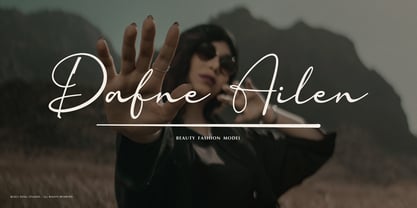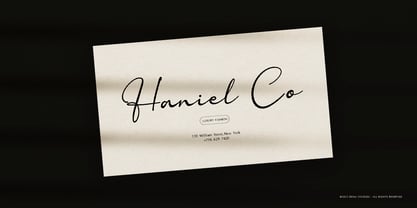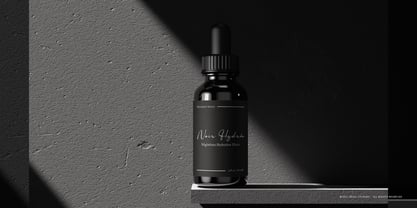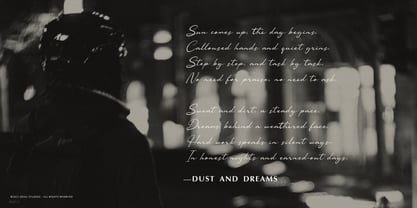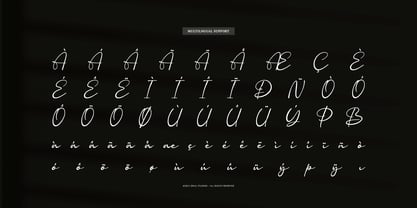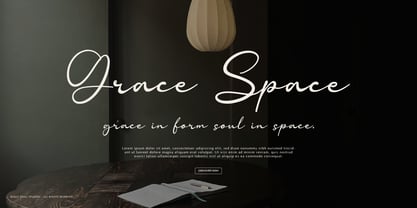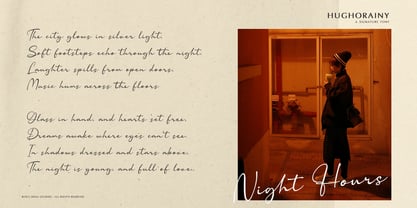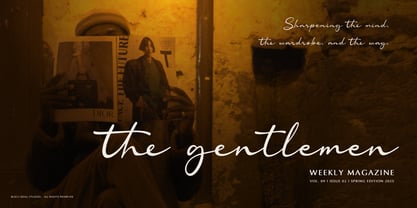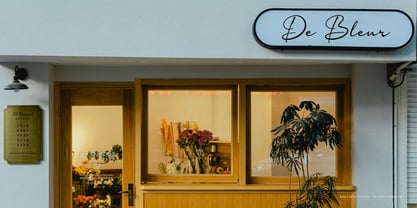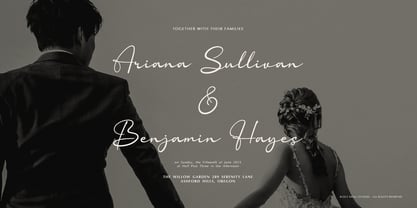
Hughorainy
Hughorainy | Signature Font, from Denustudios, suitable for any projects such as: logos, branding projects, homeware designs, product packaging, mugs, quotes, posters, shopping bags, t-shirts, book covers, name card, invitation cards, greeting cards, label, photography, watermark, special events, and all your other lovely projects that need Signature Font a taste.
• Regular and Italic
• Alternate and Ligature
• Fonts include multilingual support